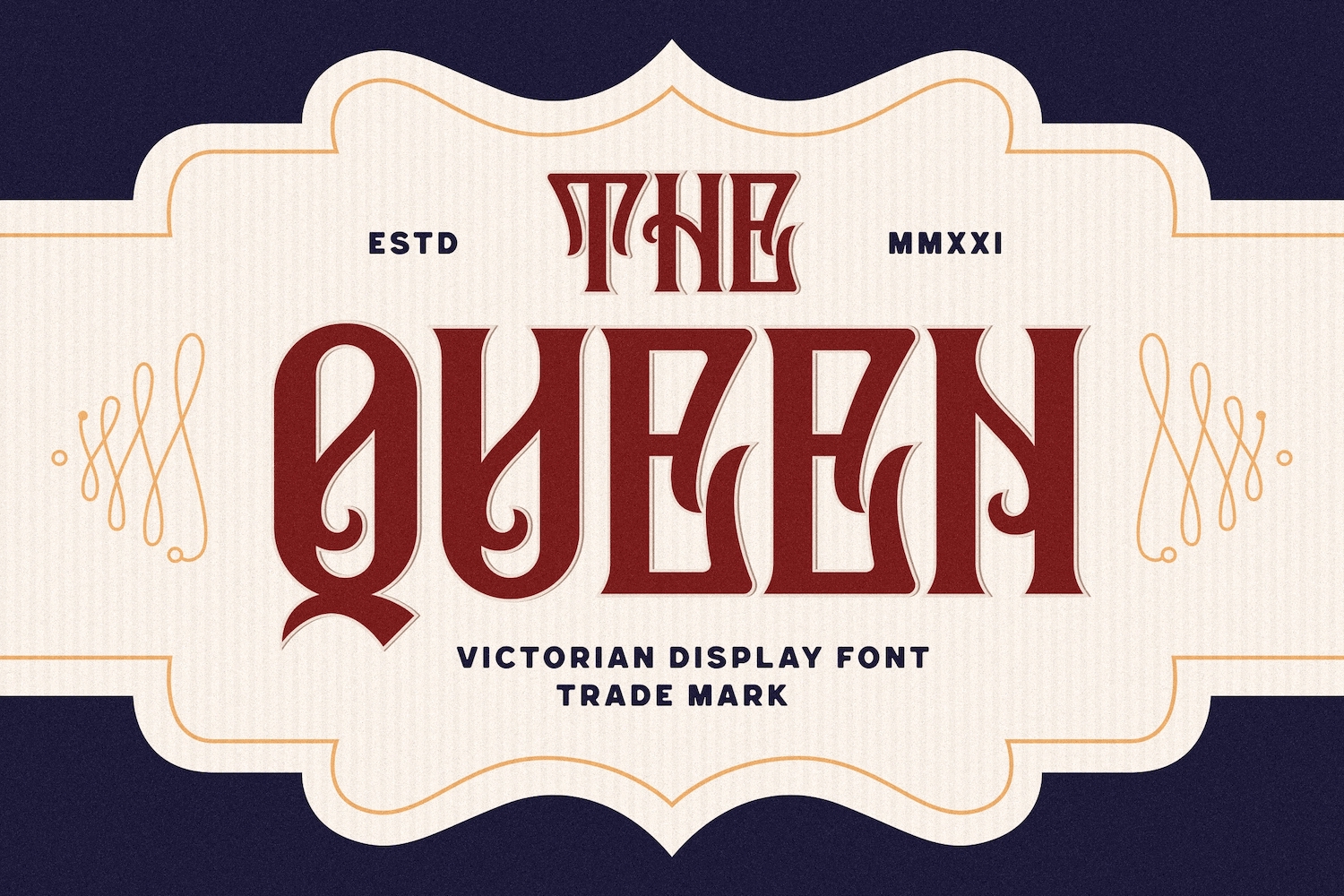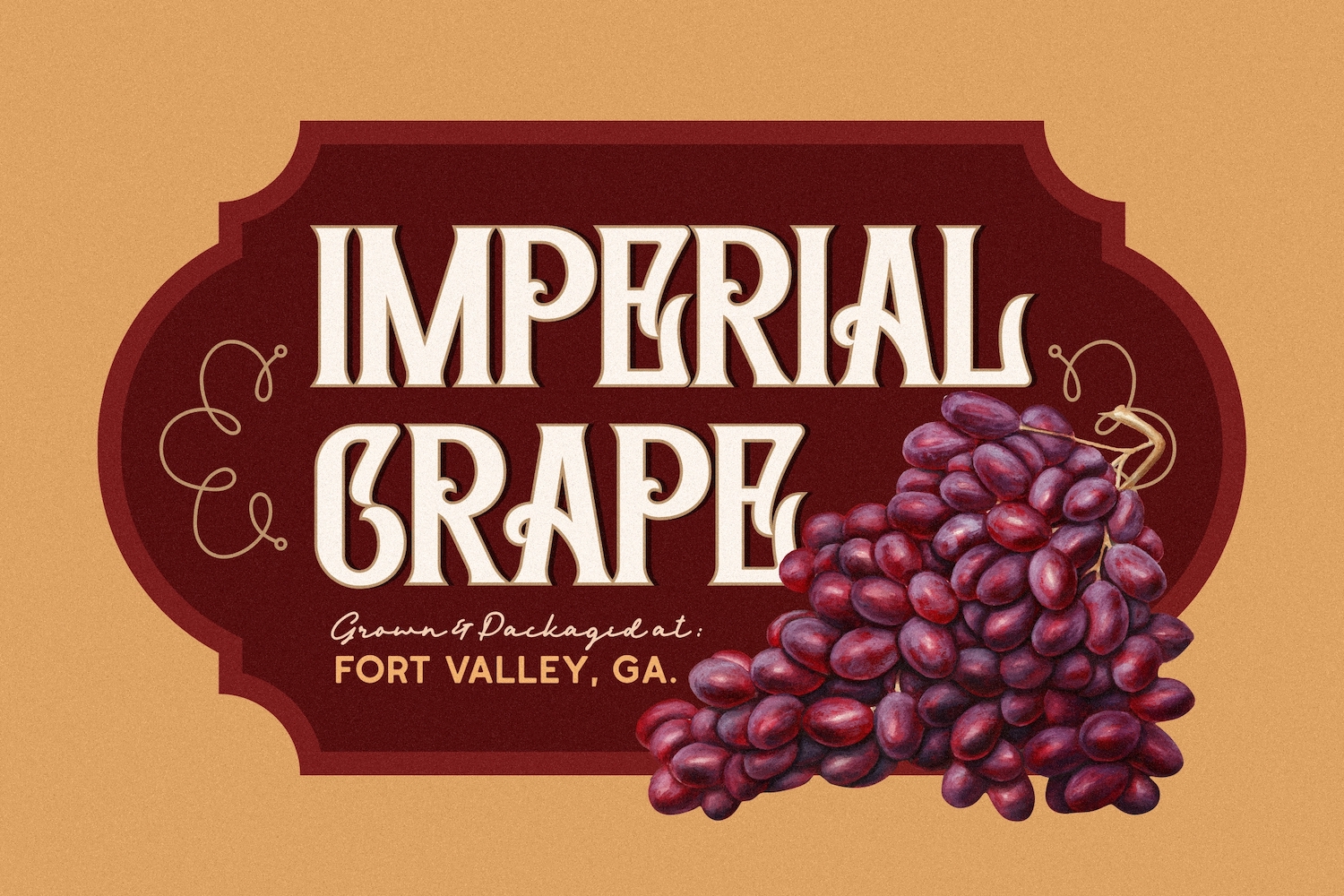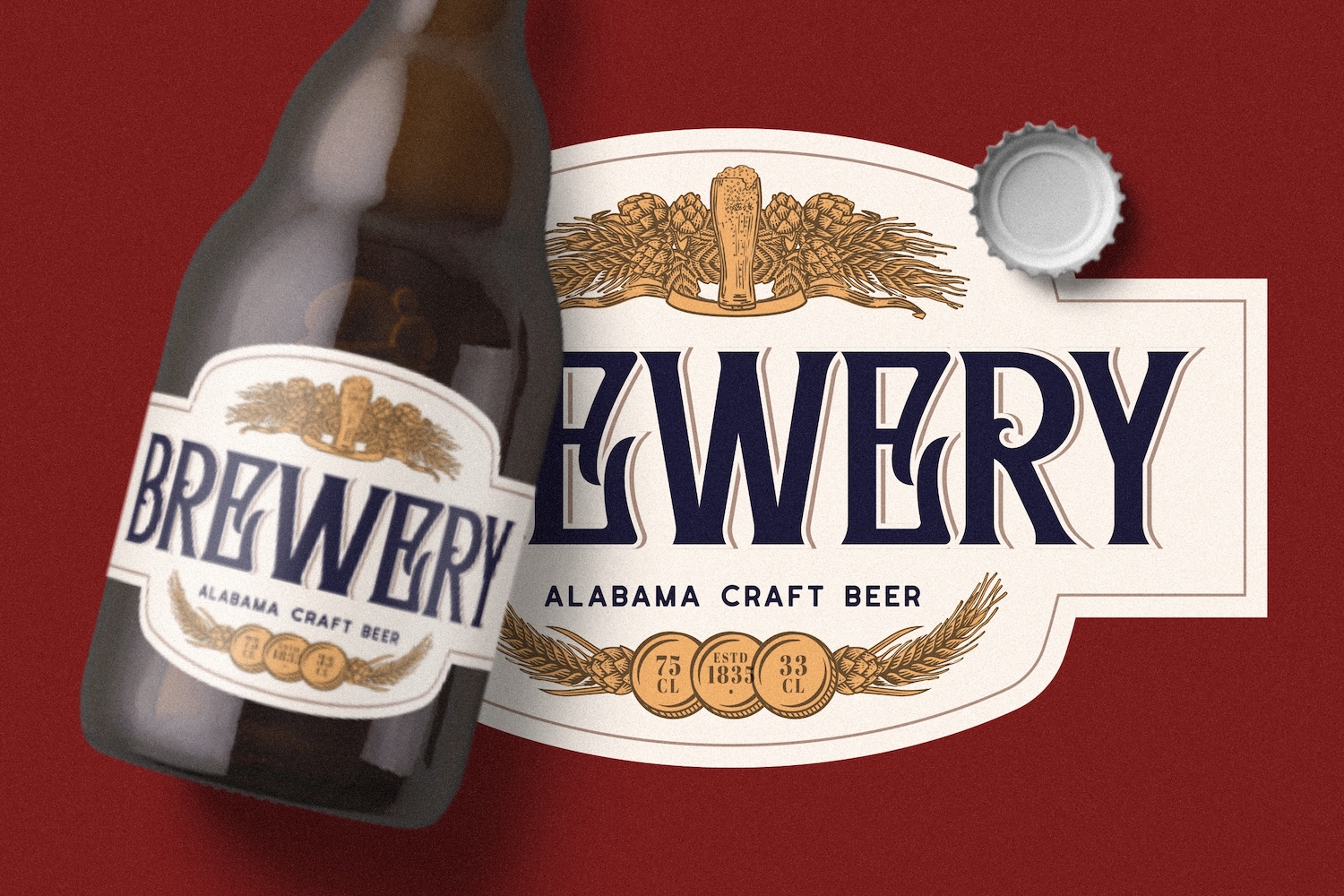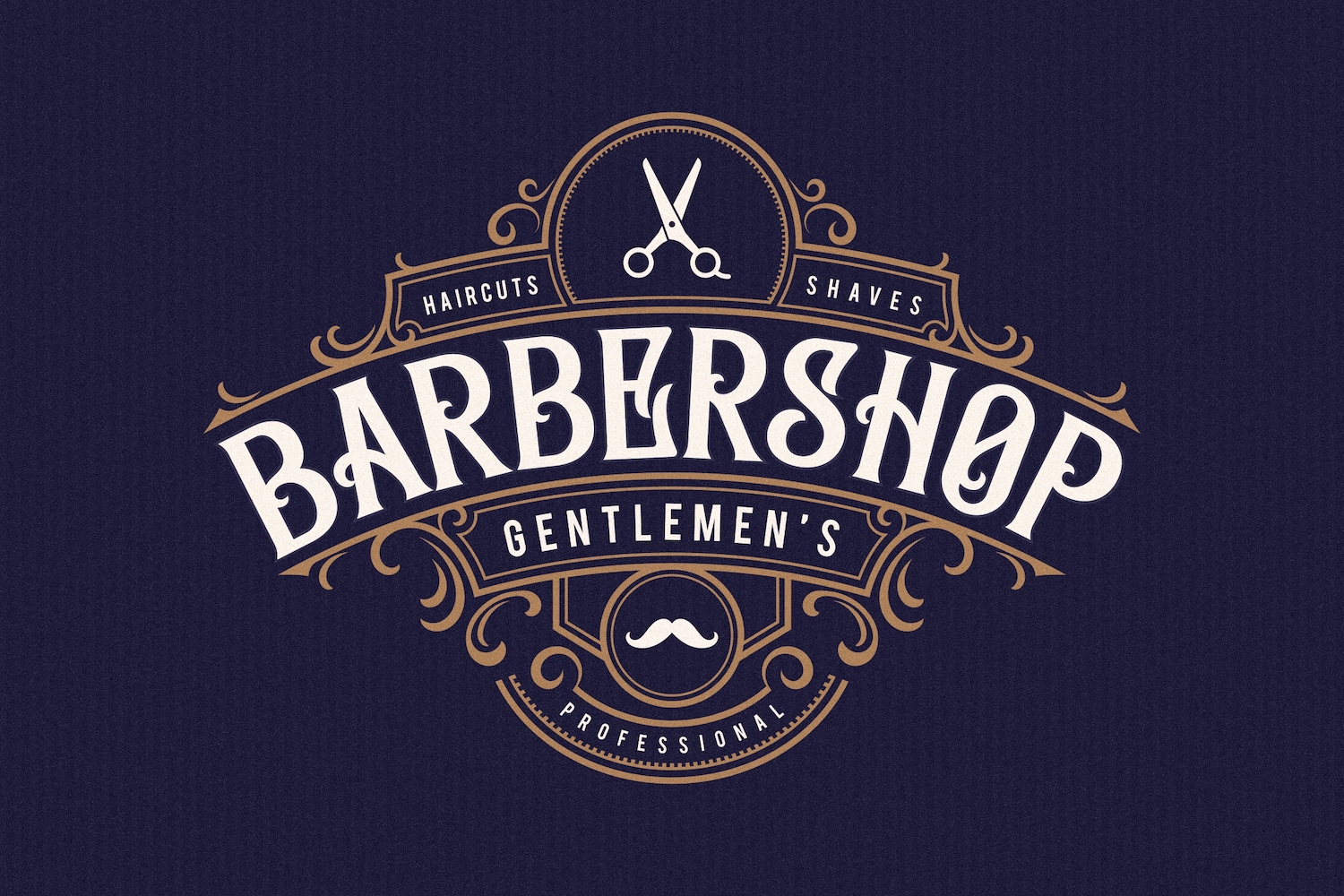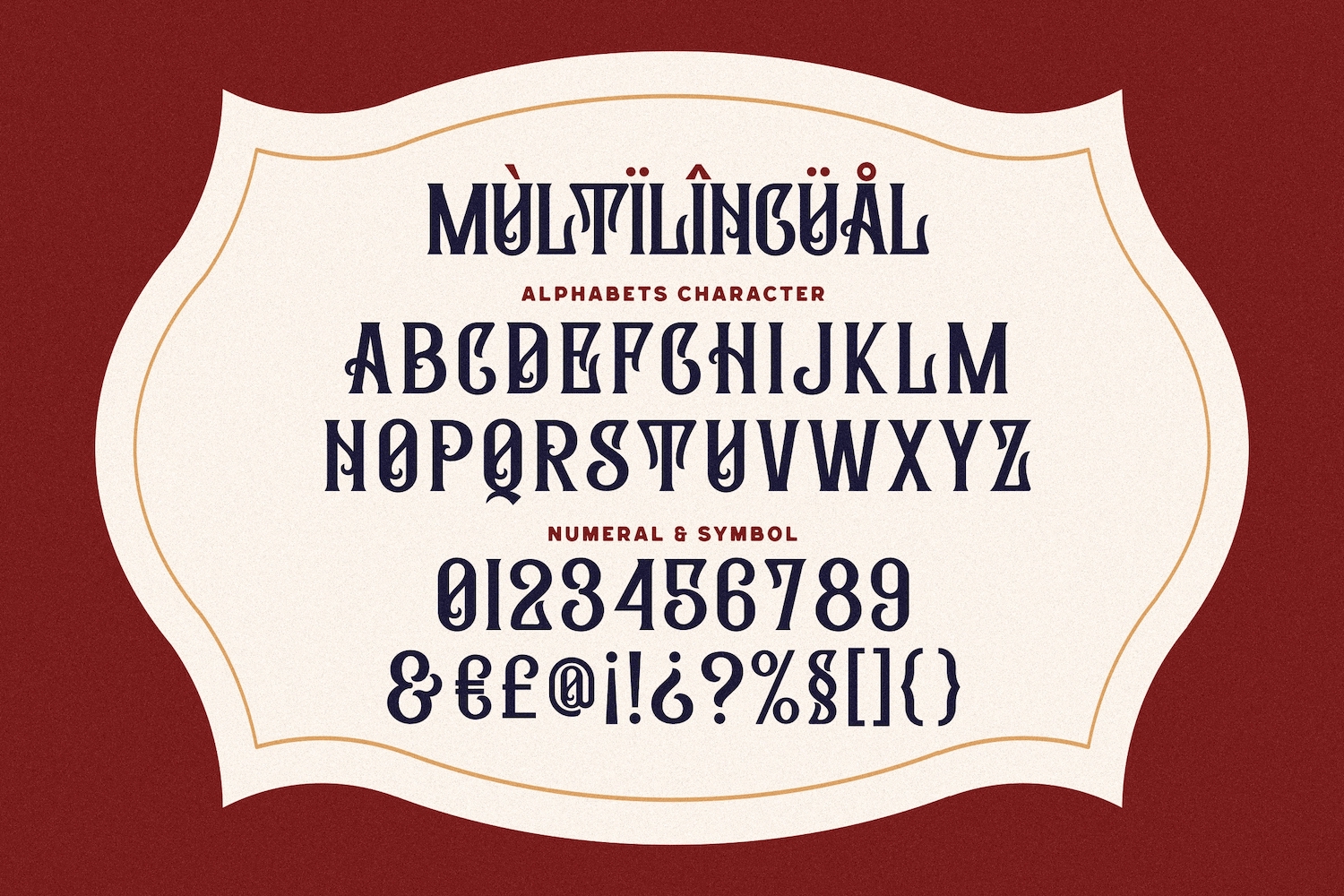
Queen is a high-contrast Victorian display font that radiates elegance and historic grandeur. Inspired by the sophisticated signage and ornate lettering of the 19th century, Queen features tall vertical serifs, sweeping terminals, and stylized strokes that command attention. This typeface is ideal for branding, packaging, logos, and editorial layouts that require a vintage yet majestic personality.
With its strong decorative appeal, Queen fits perfectly into classic-themed designs — from barbershop emblems and wine labels to artisanal product packaging. The font includes uppercase characters, numerals, symbols, and multilingual support, giving you complete control for distinctive typographic compositions. Elevate your design with a font made to reign.
Queen